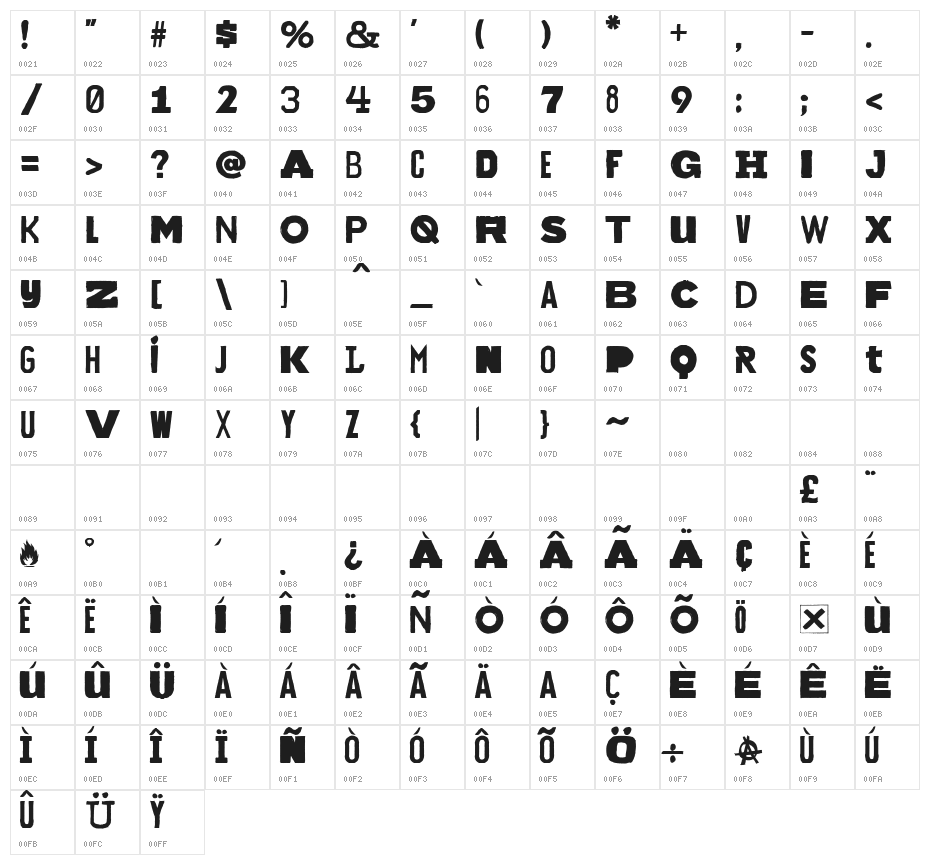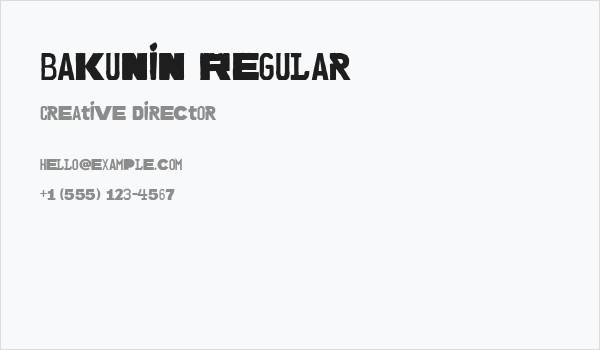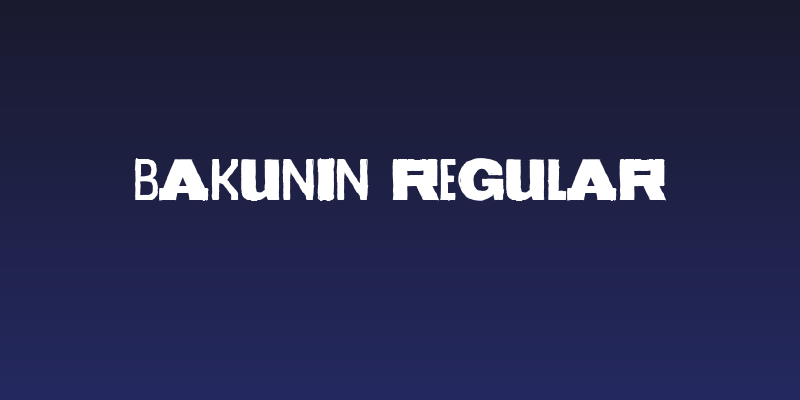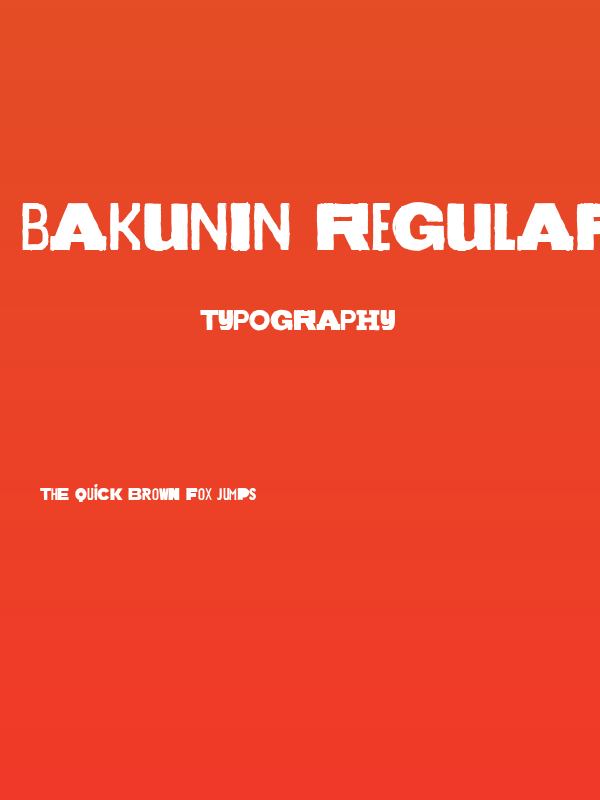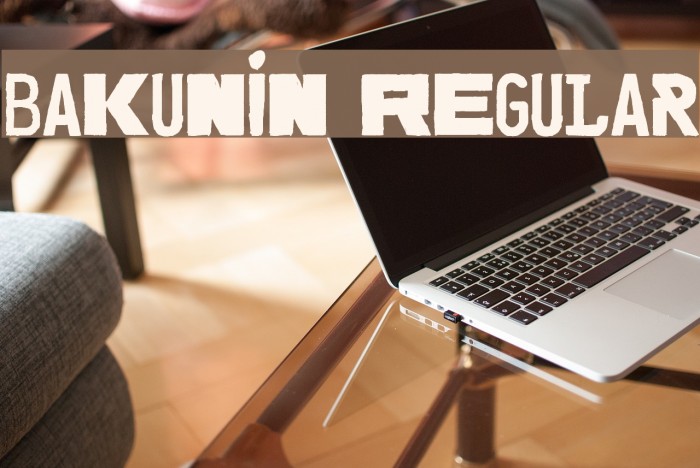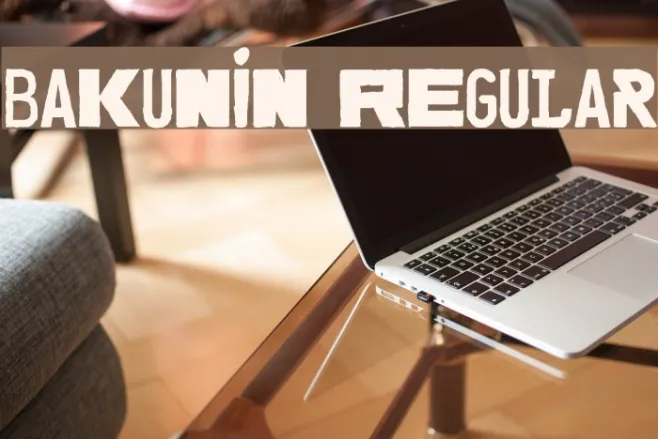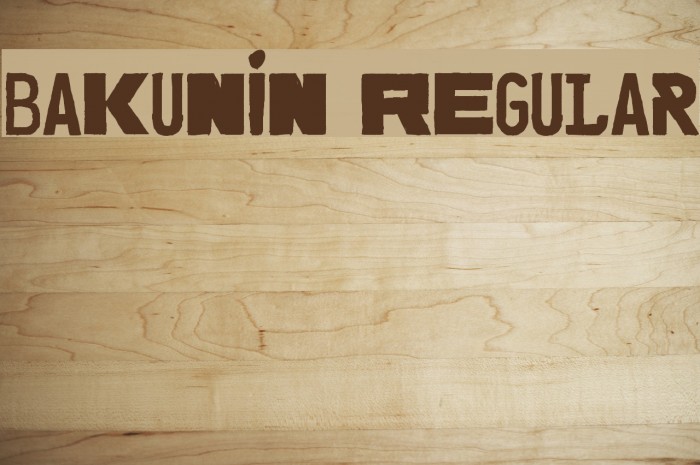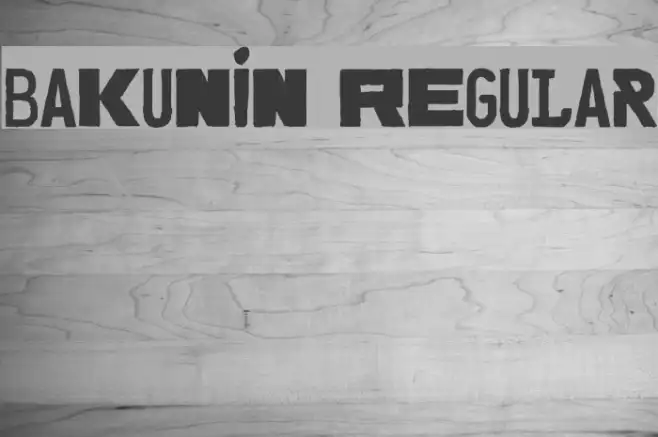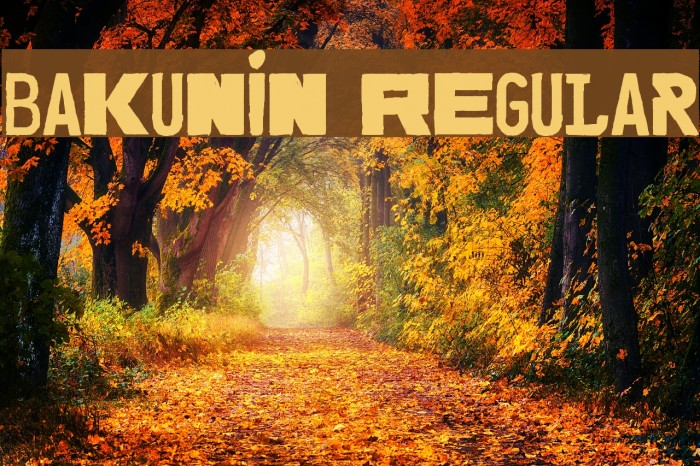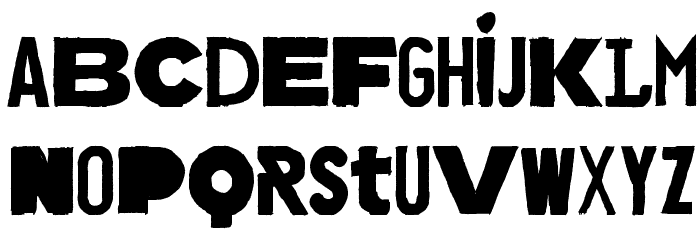
Bakunin Regular Font
Bakunin Regular Description
This font features a bold and rugged design with a distressed texture that gives it a hand-crafted appearance. The characters are thick and substantial, with irregular edges that add a sense of dynamism and energy. The uppercase and lowercase letters maintain a consistent style, while the numbers and special characters complement the overall aesthetic. This font's unique and bold style makes it stand out, ideal for projects that require a strong visual impact.
| Proposed Projects | Ideal for posters, album covers, branding, and any design requiring a bold, impactful statement. |